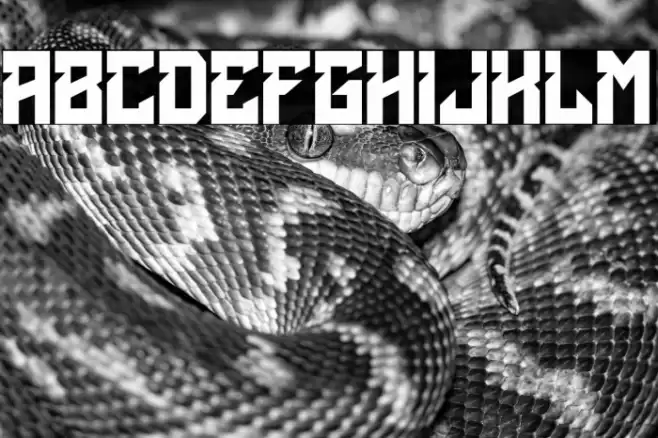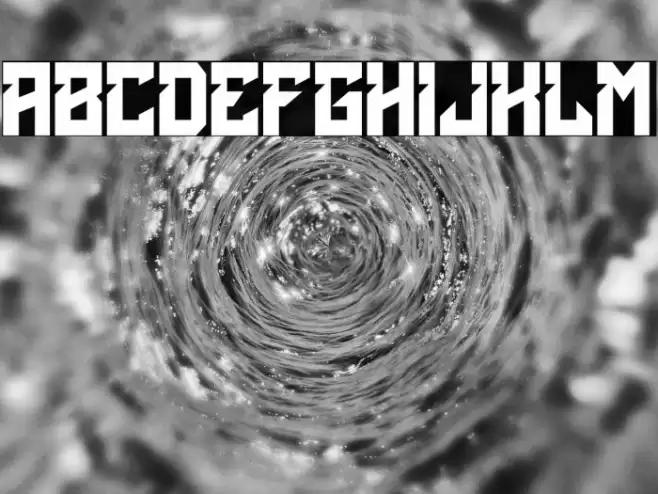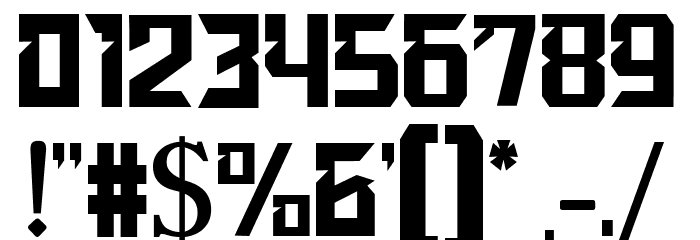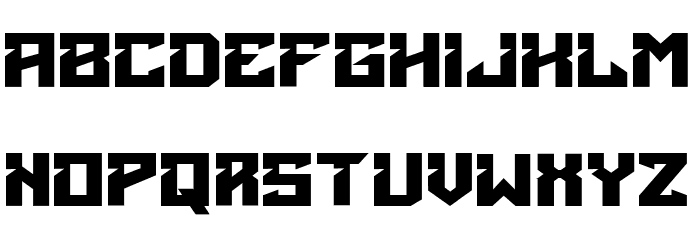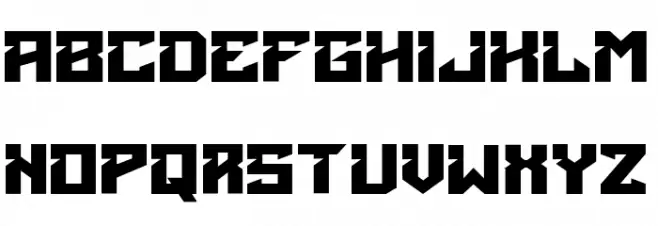
Acients Font
Acients Description
This font features a bold, geometric style with sharp angles and a strong presence. The uppercase letters are distinct with a blocky, angular design that gives a modern and edgy feel. The lowercase letters maintain the same angular characteristics, ensuring consistency throughout. Numbers are equally bold and geometric, making them stand out. Special characters follow the same design principles, providing a cohesive look across all elements. The font's unique style makes it ideal for projects that require a strong visual impact.
A bold, geometric font with sharp angles and a modern, edgy style from Uncategorized fonts.
- Contrast: High